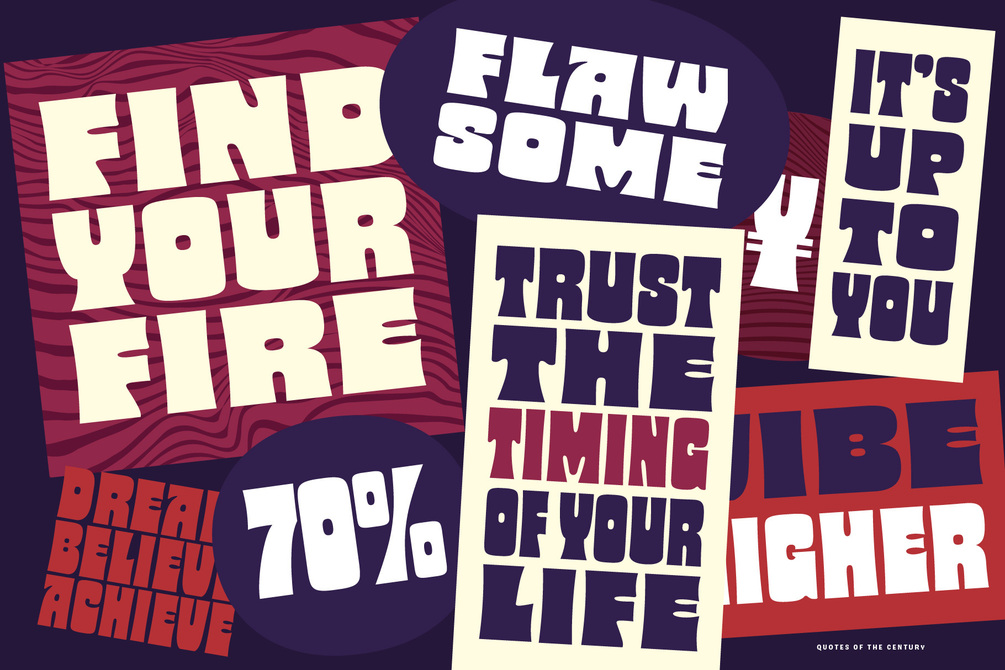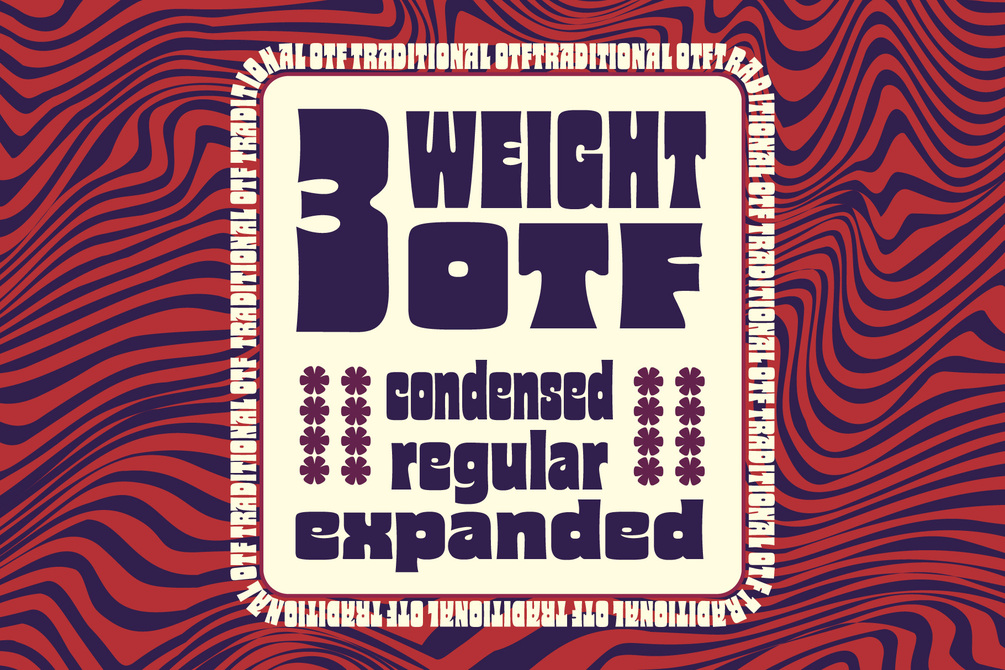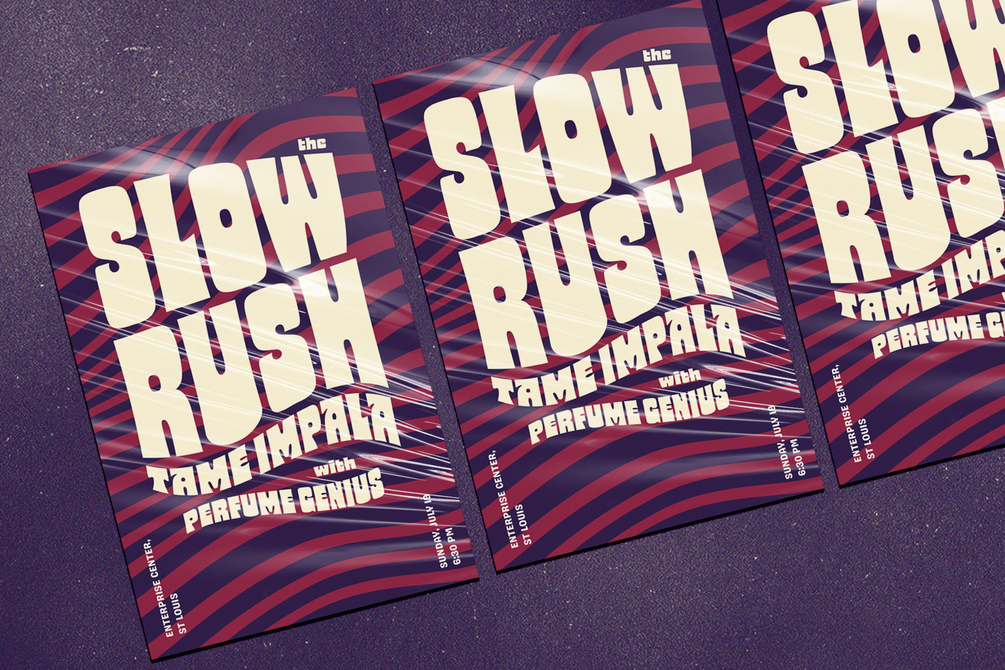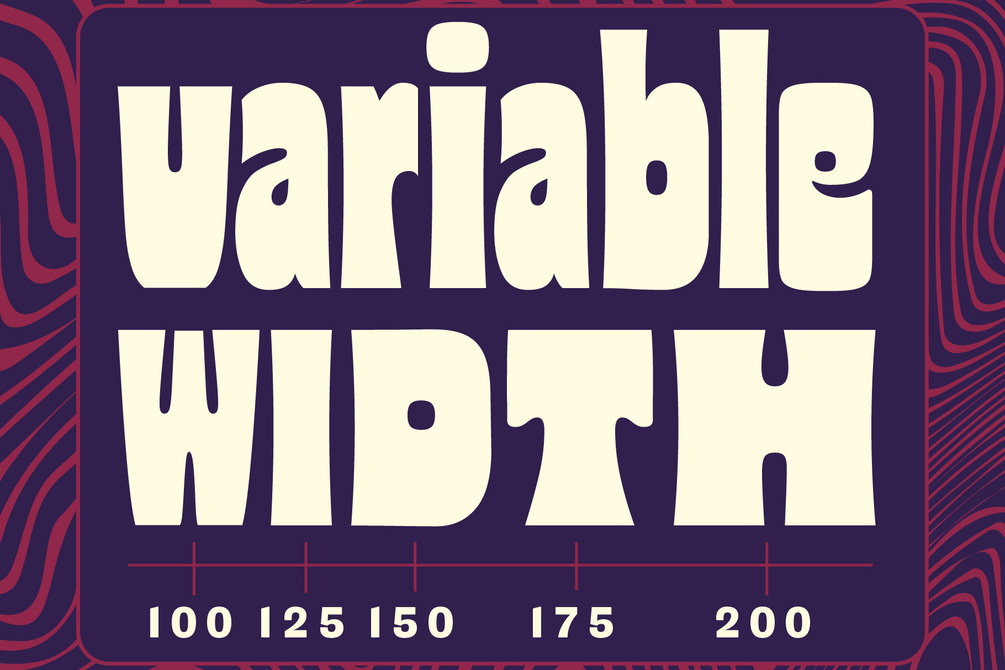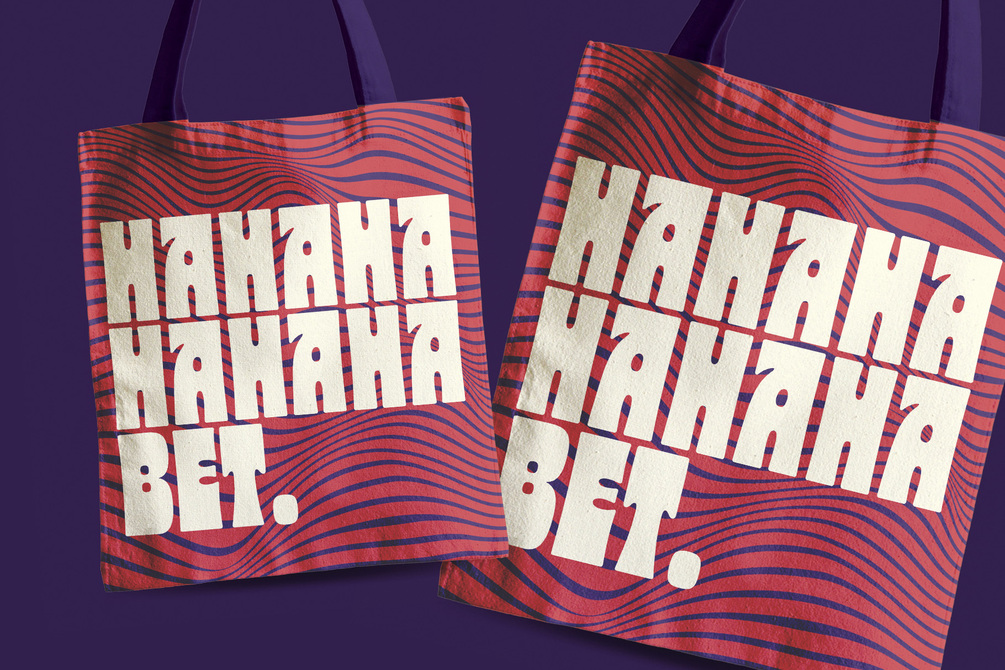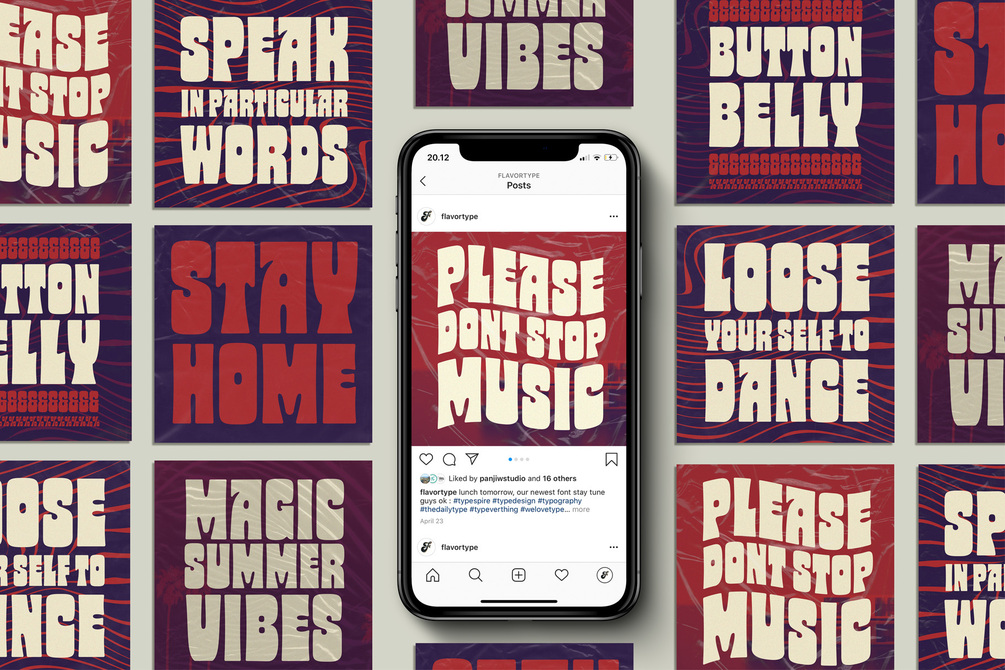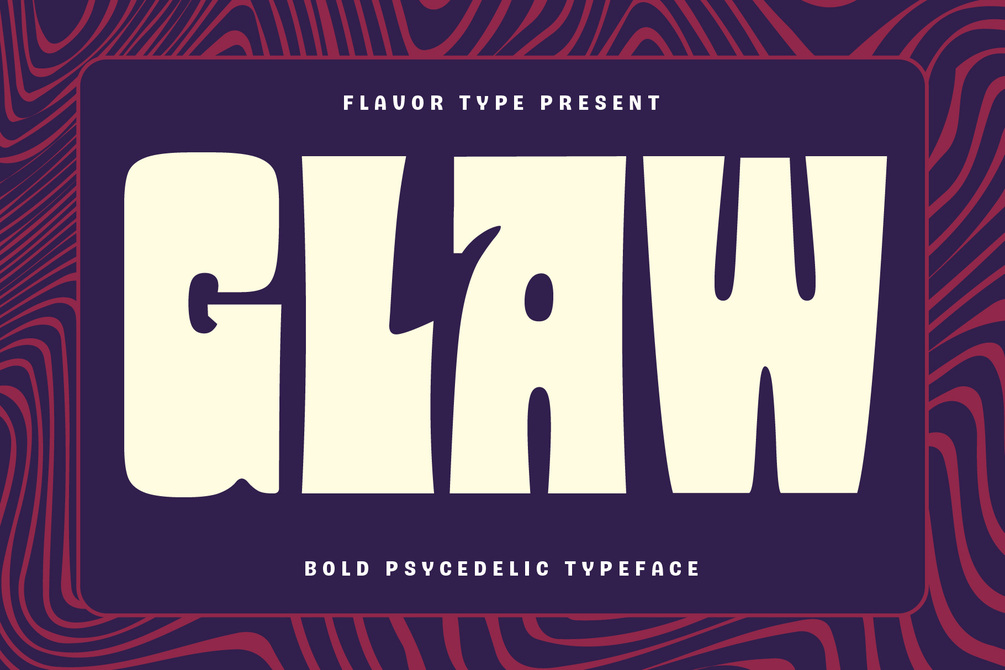
Glaw Typeface
Meets Glaw, A new carefully crafted Fonts from Ilham Herry to bring a new heavy look of Psychedelic Theme. The Ideas of this fonts are from 70s, Psychedelic, Funk, Hippie, Party, Music and Etc. Even though it’s a specific theme for this fonts. It doesn’t ruled out the possibility of creating a new style or themes. Glaw Created with a 3 Weight on the traditional OTF, Condensed, Regular and Expanded. Not Just that, If your software are support for Variable Fonts like Adobe Illustrator or Photoshop, The Weight are going to 100 Weight !.
Glaw Best used for a Large Text such as Headline, Poster, Branding, Logos, Concert, Branding and Any other use that needs a Heavy looks for the Title. Our creation on the display to give you a reference what it looks like on your project. It shows that how Glaw will look on your design style.